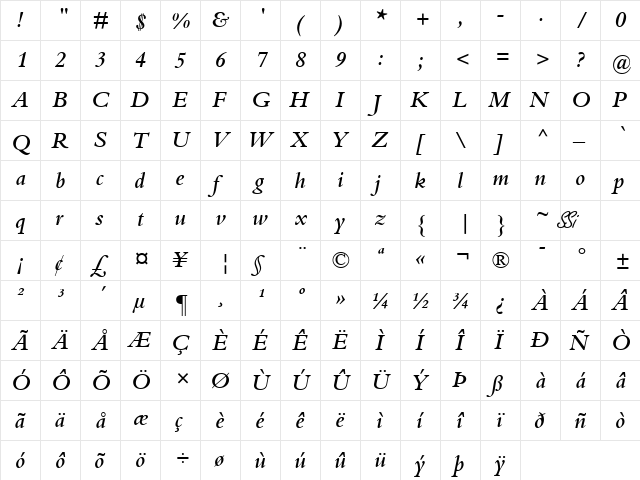
Kuriakos SSi Semi Bold Italic Font Preview
Design Context for Kuriakos SSi Typeface
Kuriakos SSi takes a measured approach to typography — its balanced proportions and neutral character make it a reliable workhorse for both digital and print work. The slanted form adds forward momentum and visual energy. Its bold stroke weight gives it real presence on the page.
Pro Tip: Try Kuriakos SSi for annotation and caption copy alongside an upright companion — the contrast in angle creates a dynamic but ordered typographic system.